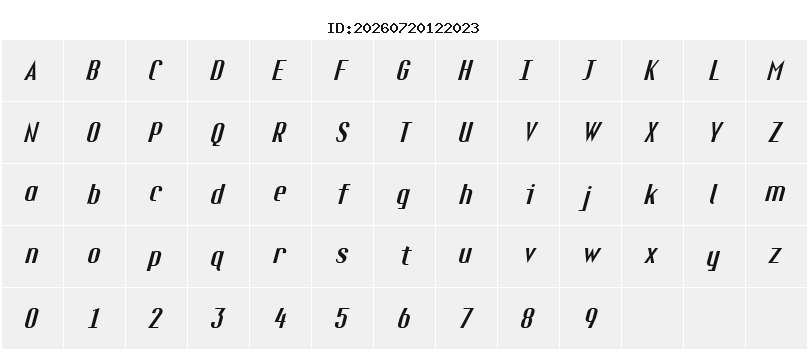
• Font Name: Fuel
• Full Font Name: Fuel Italic
About Fuel.ttf
Fuel.ttf is a modern, elegant sans-serif font designed for ultimate readability and visual harmony. Perfect for branding, headlines, web design, and print materials.